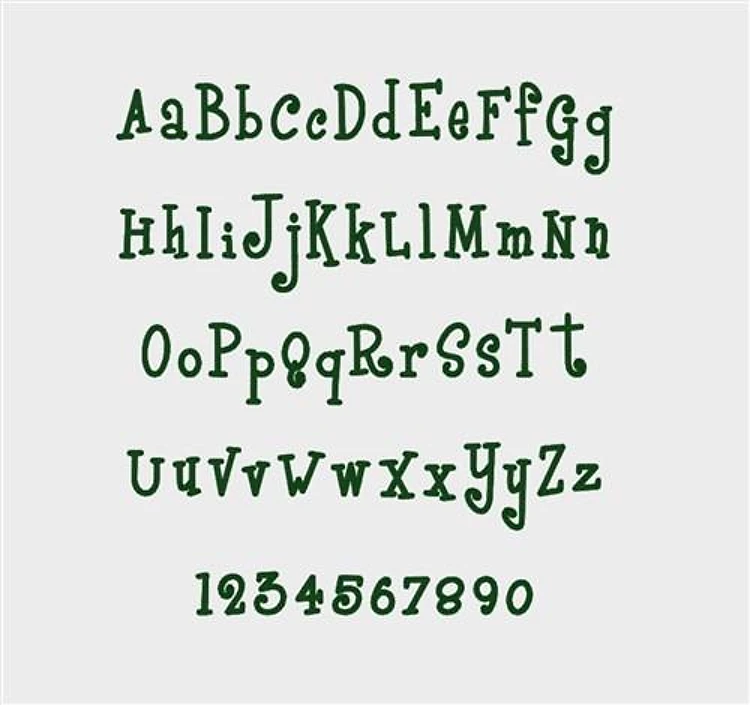
Boyzrgross Embroidery Font - Whimsical Colorful Handwriting - PES, DST & 6 formats by Artsy Knots and other embroidery fonts available at EmbroideryDesigns.com.
This colorful decorative embroidery font showcases playful uppercase letters, making it ideal for casual projects like children's clothing or fun home decor. Available in PES, DST and 6 other formats.